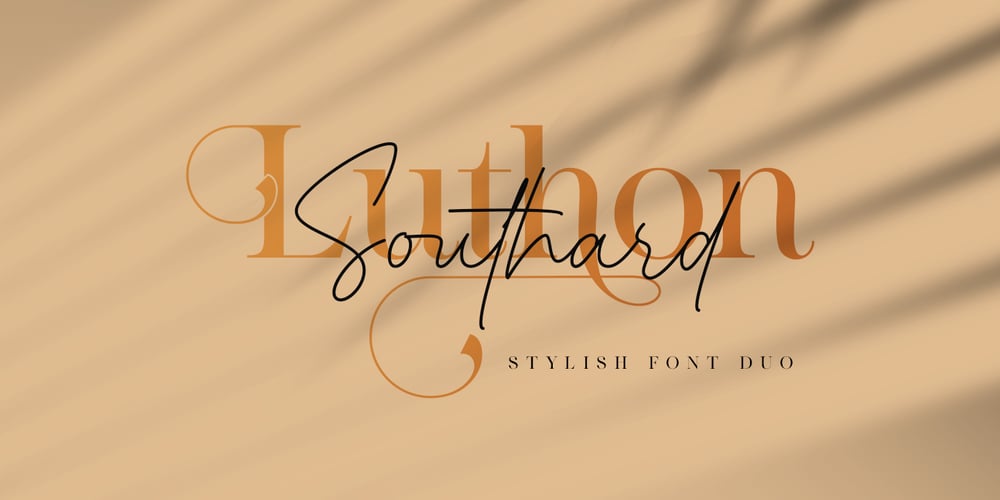
Luthon Southard
Luthon Southard font
Luthon Southard Font Family was designed by Dwi Ahidian and published by Lemonthe. Luthon Southard contains 2 styles and family package options. Luthon Southard is a spectacular duo font (Stylish Serif and Monoline Script). Perfect for product packaging, branding project, magazine, social media, and much more. Add this font to your favorite creative ideas and notice how it makes them come alive!